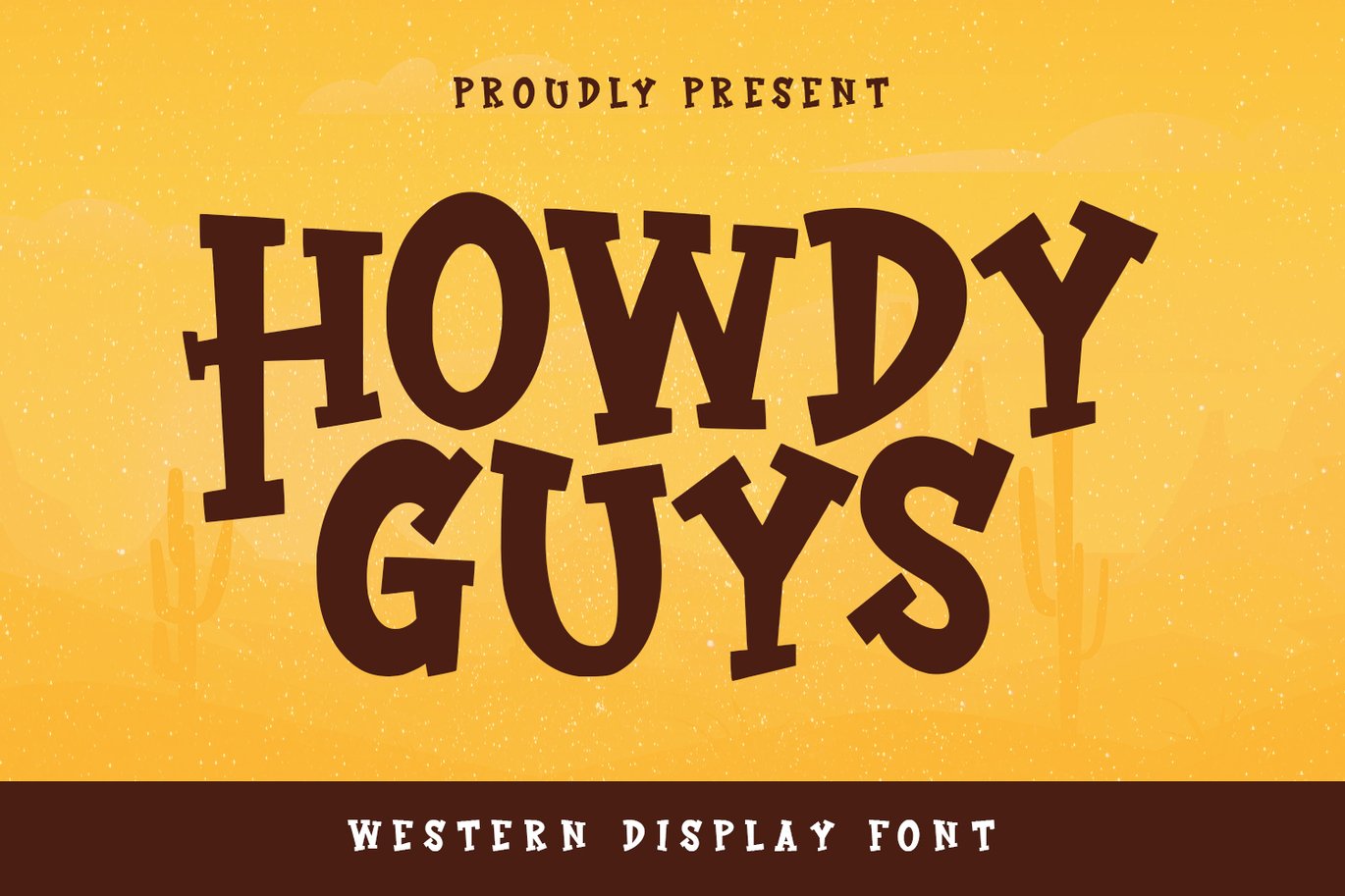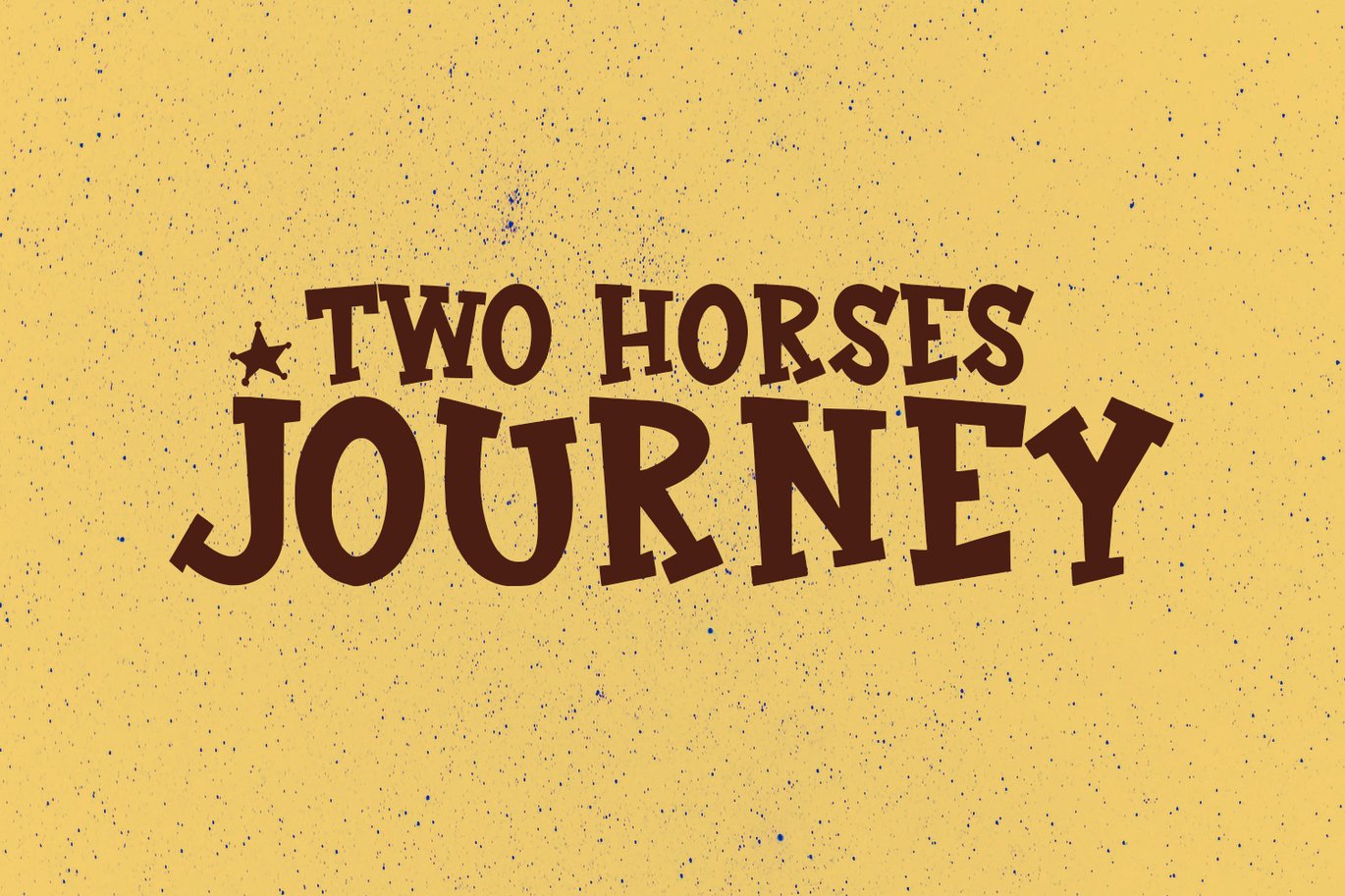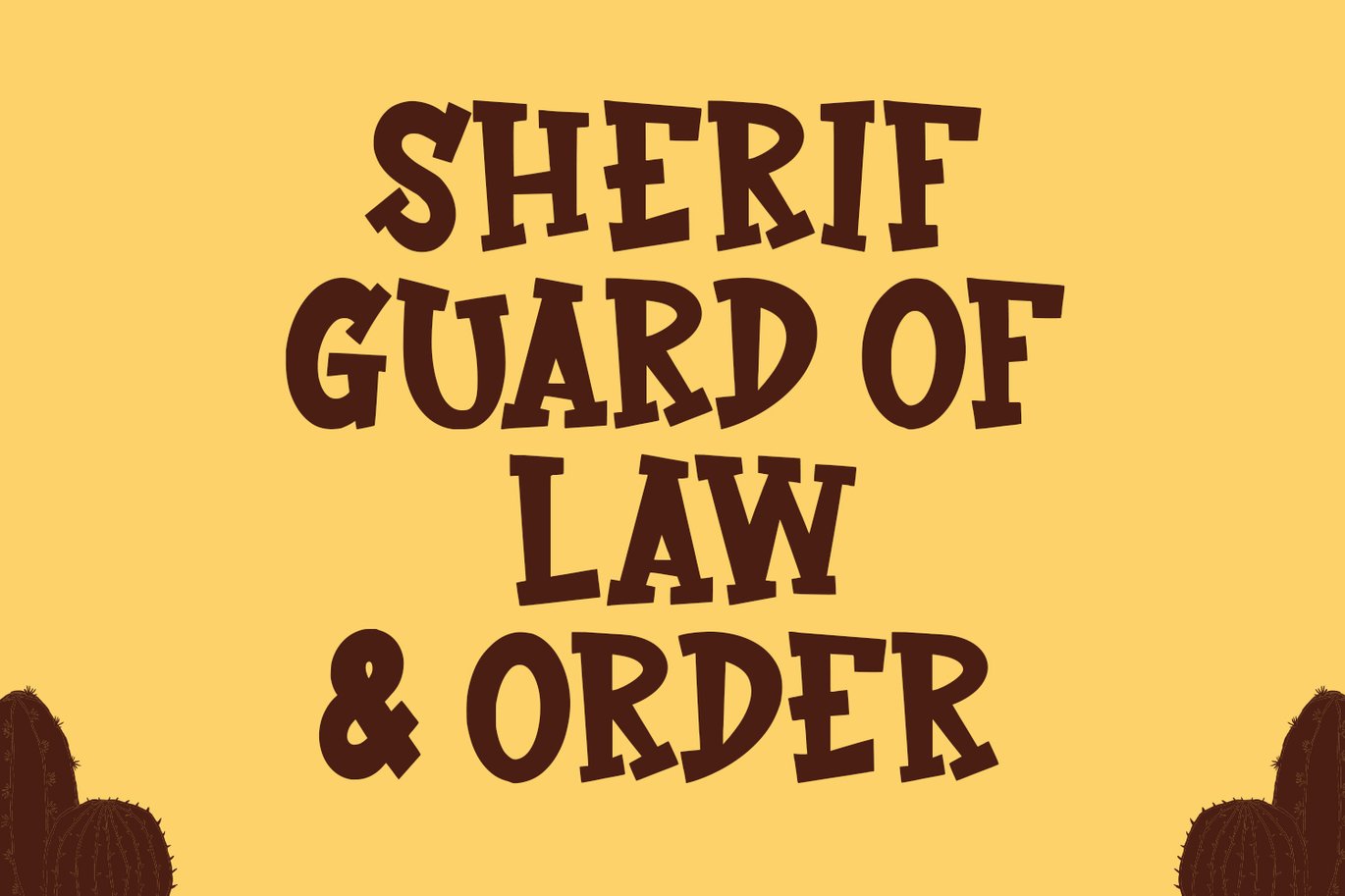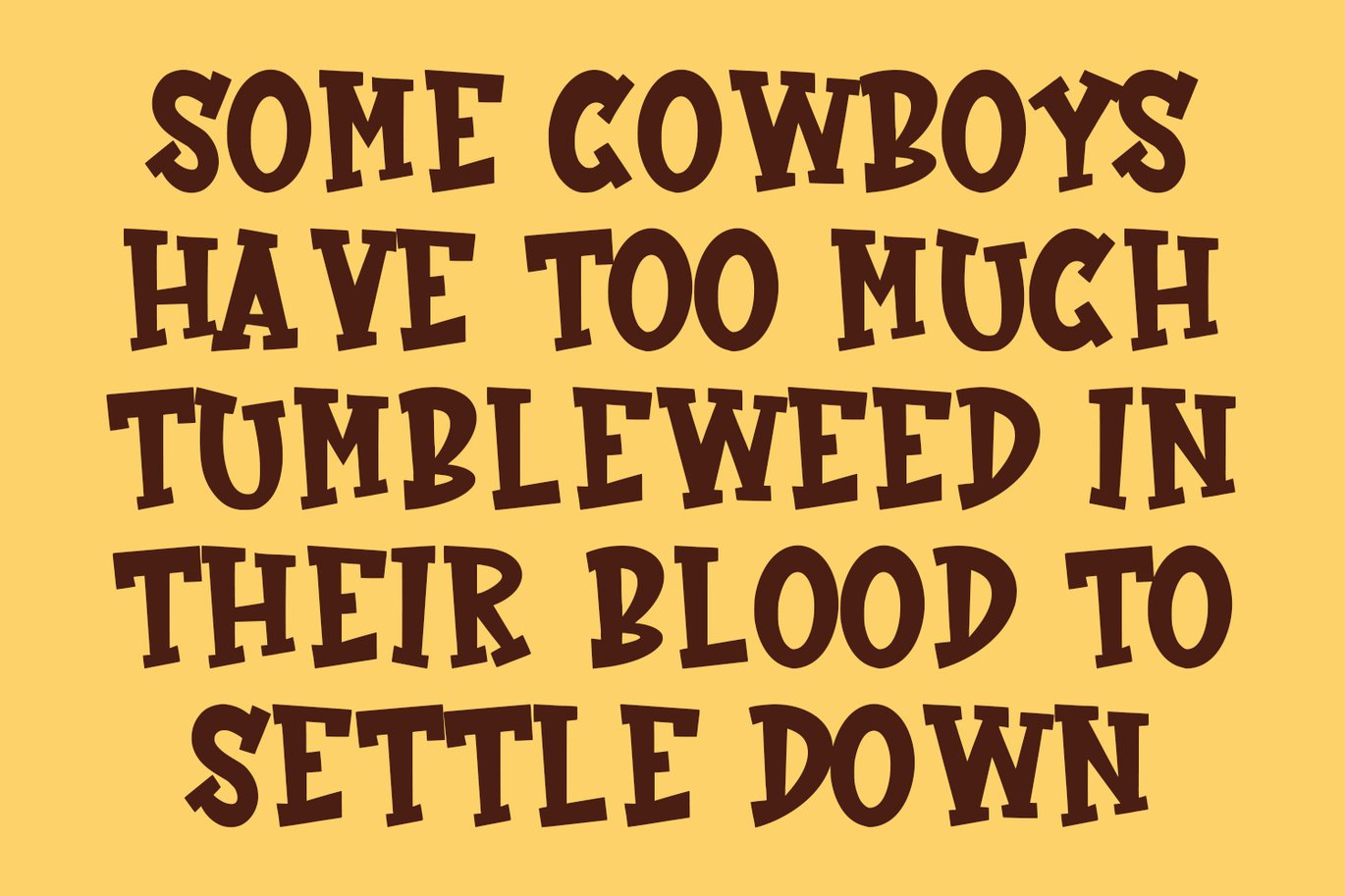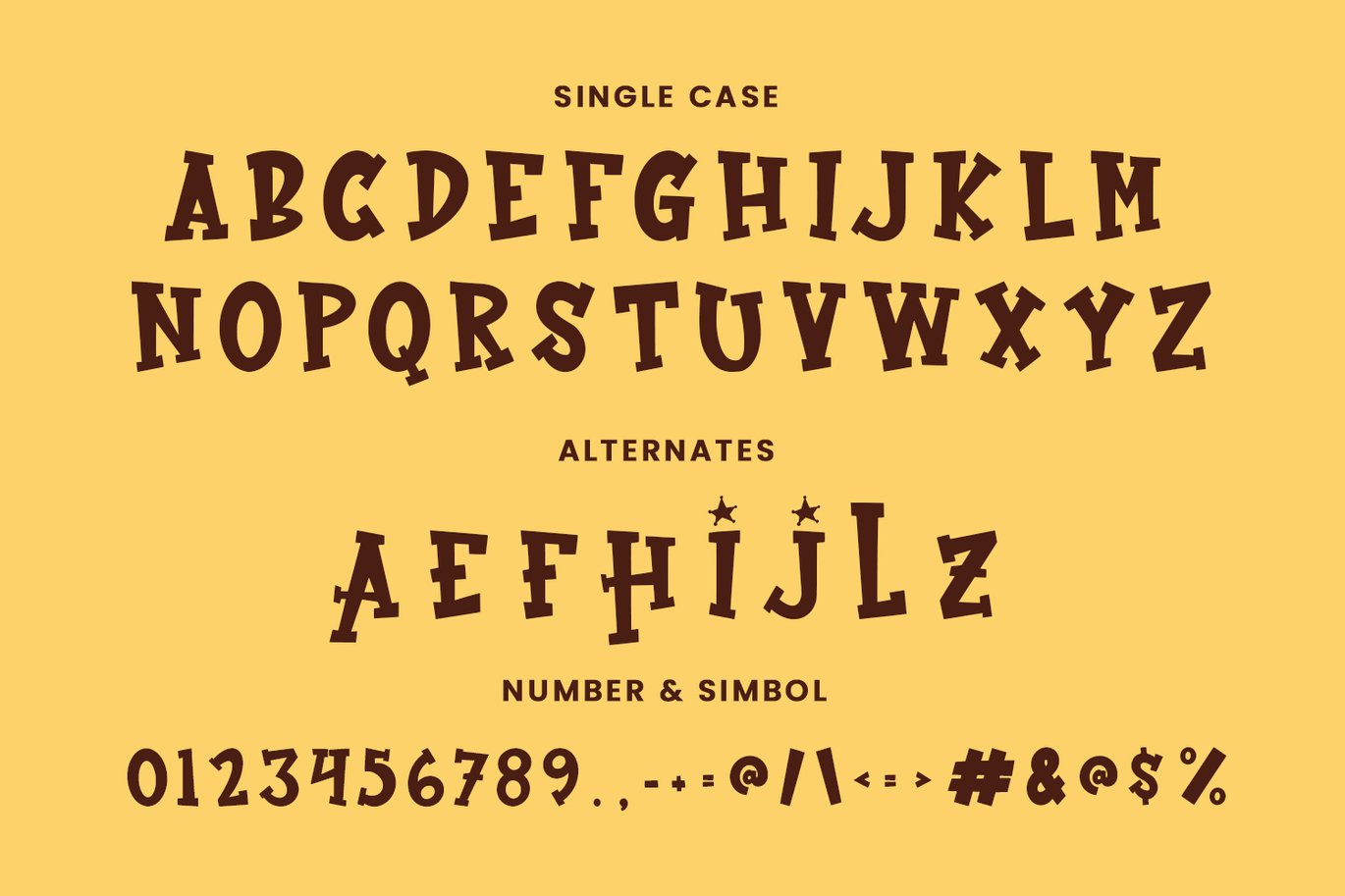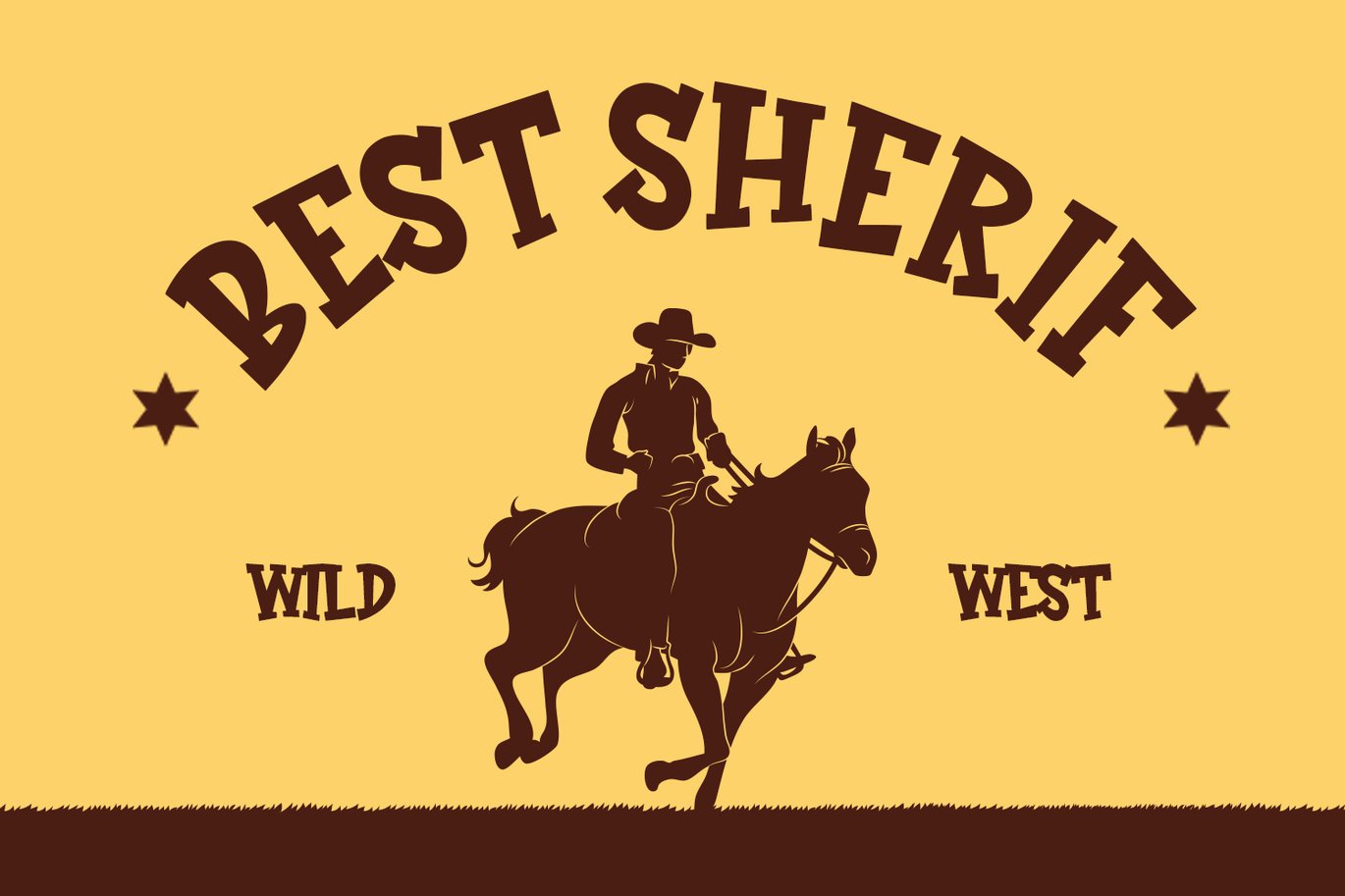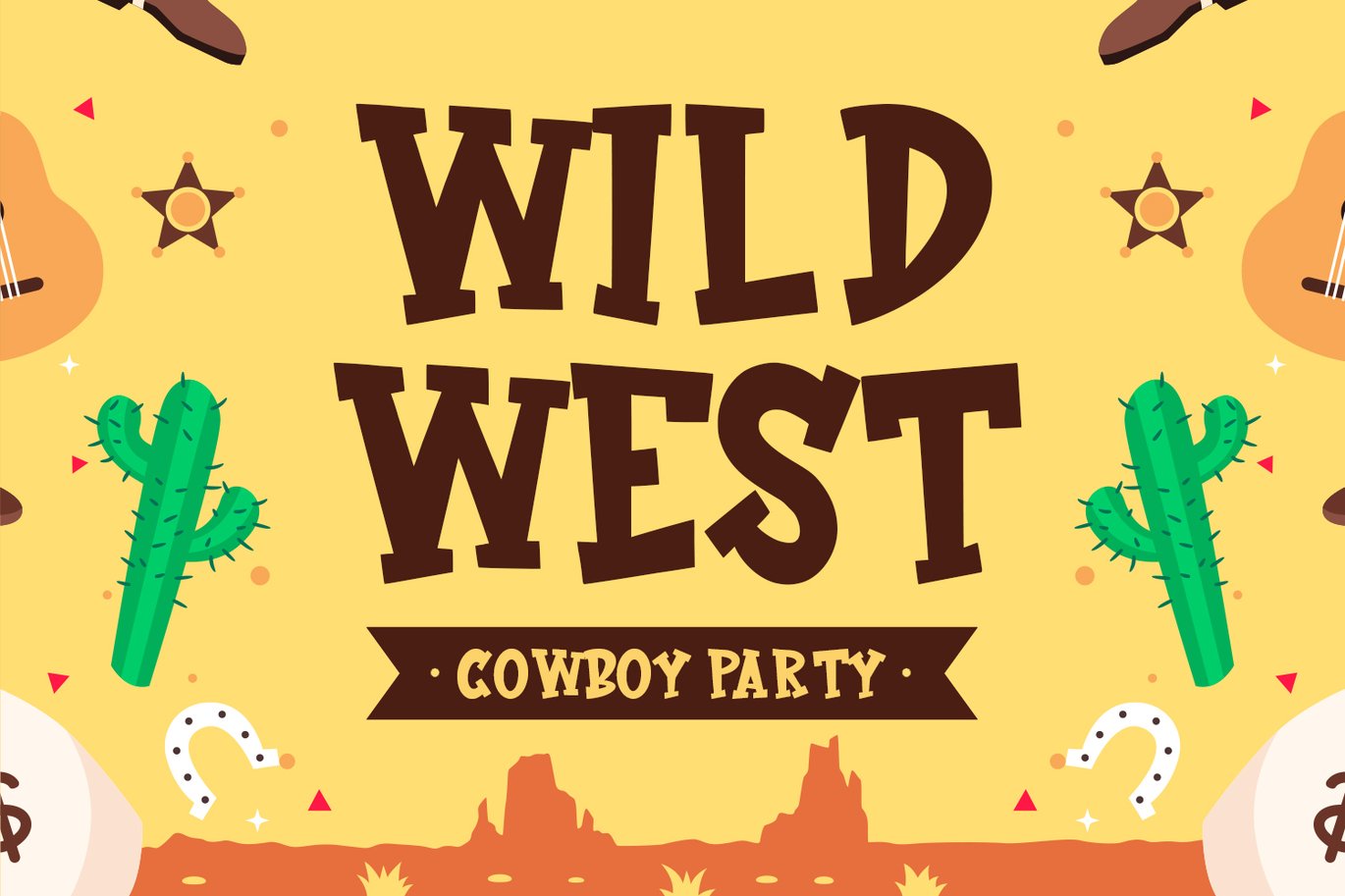
Howdy Guys Western Display Font
Howdy Guys Western Display Font. Bold stroke, fun character with a bit of ligatures and alternates. To give you an extra creative work. Howdy Guys font support multilingual more than 100+ language. This font is good for logo design, Social media, Movie Titles, Books Titles, a short text even a long text letter and good for your secondary text font with script or serif. Make a stunning work with Howdy Guys western display font.